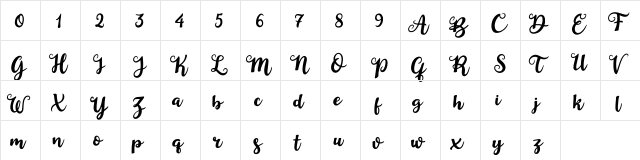
Duck in Shipah Font Preview
Duck in Shipah Duck in Shipah
Duck in Shipah Font Details
Design Context for Duck in Shipah Typeface
Duck in Shipah is a composed and adaptable typeface that performs quietly and consistently across a wide range of design contexts.
Pro Tip: Use Duck in Shipah in both headline and body roles to test its range before committing to a single application.